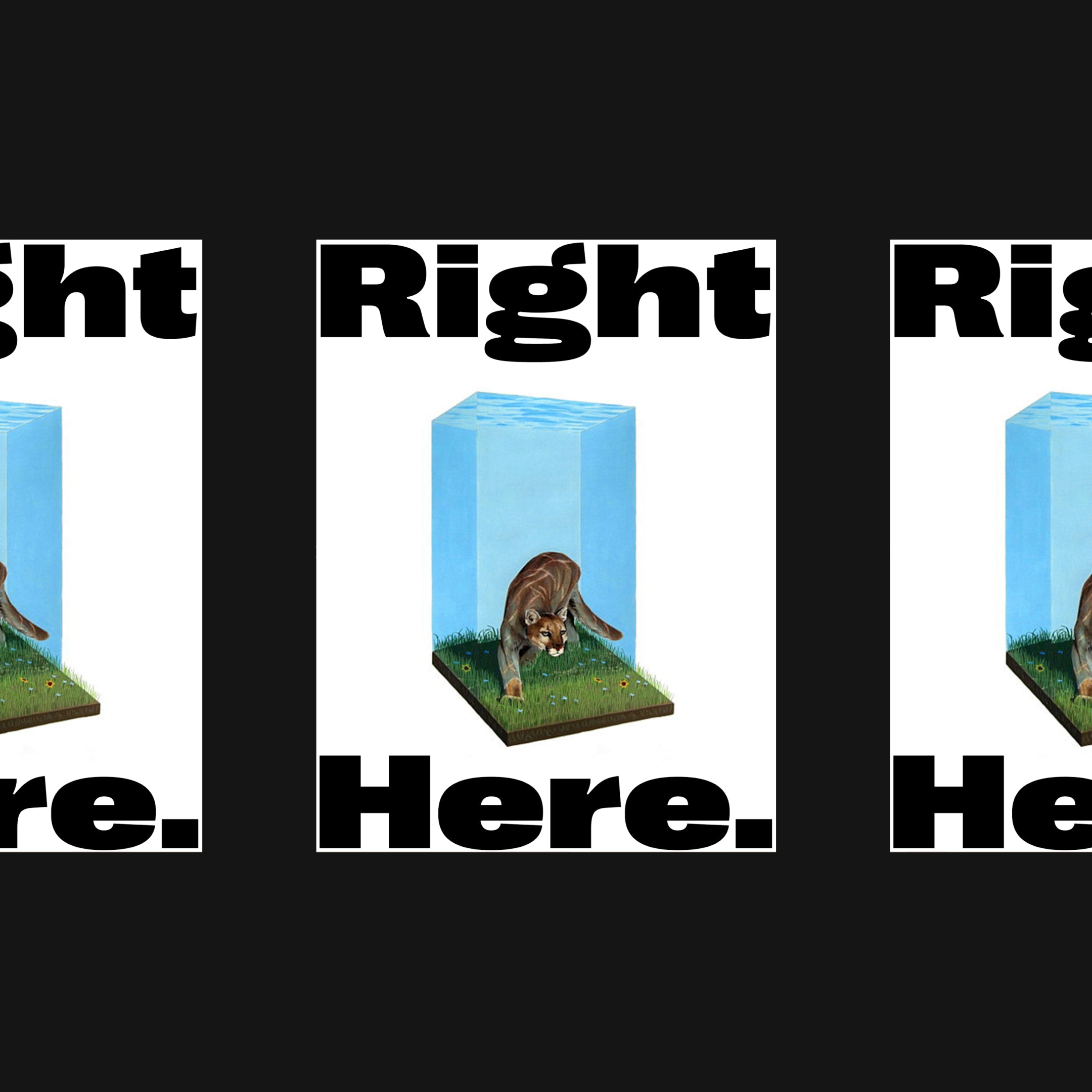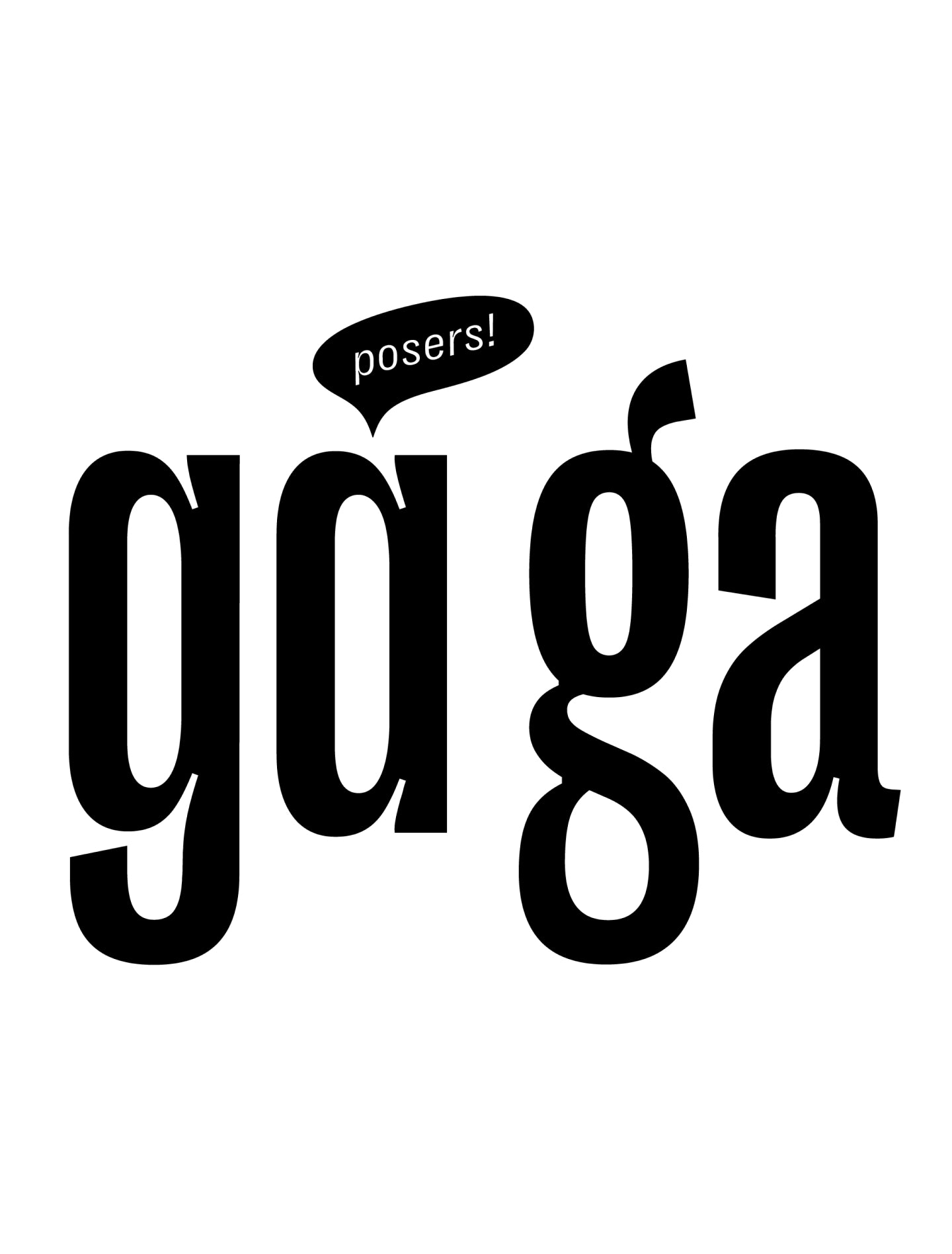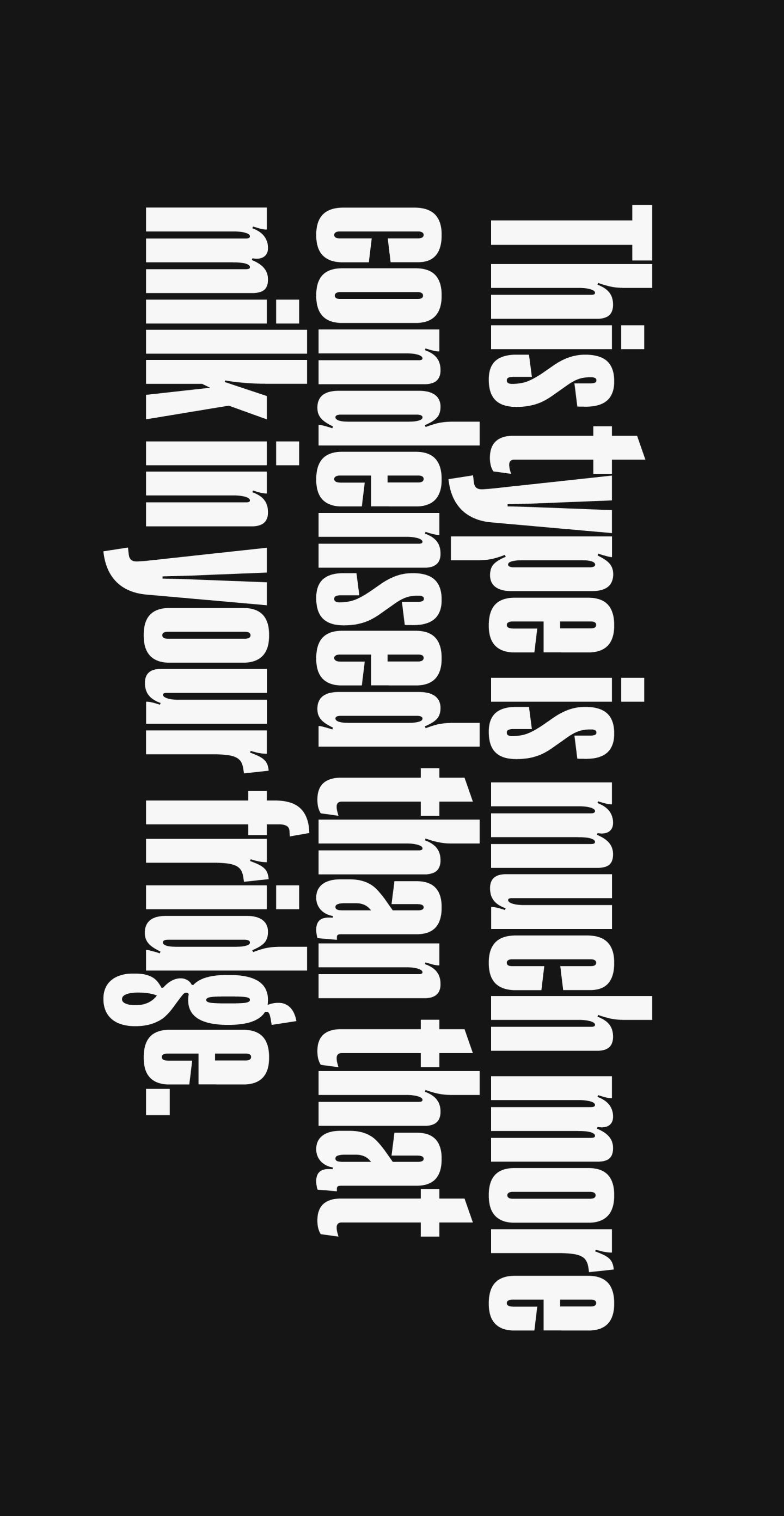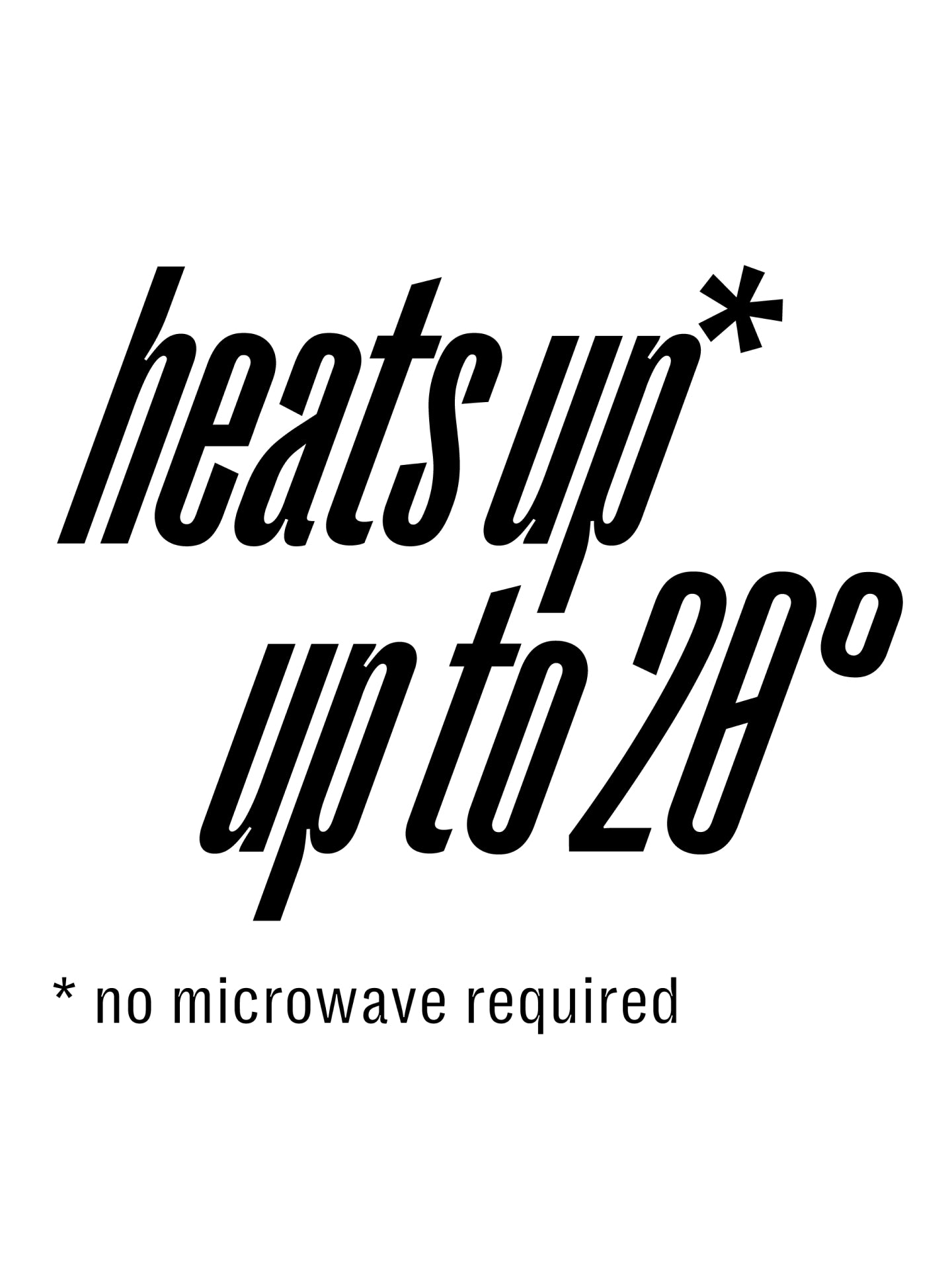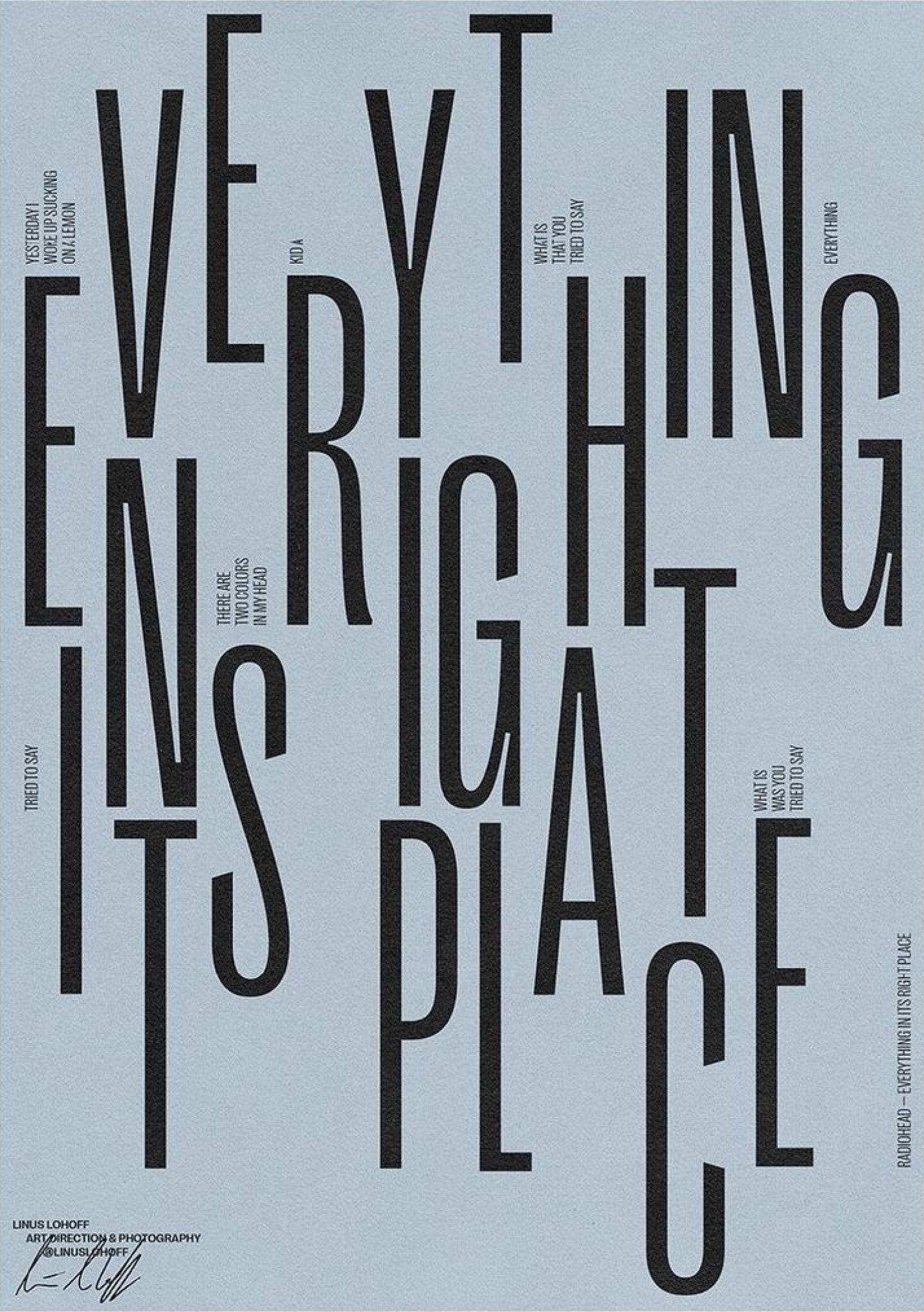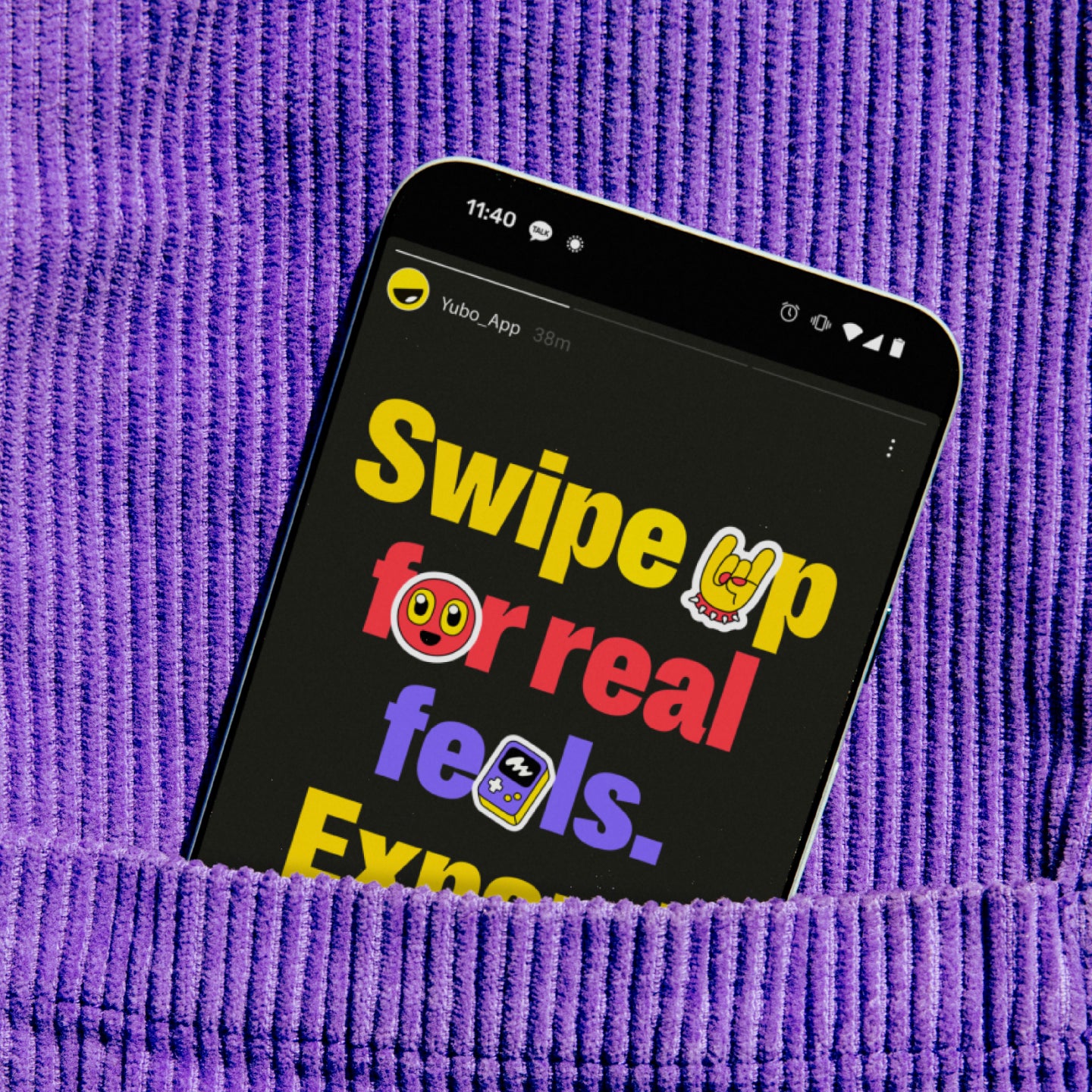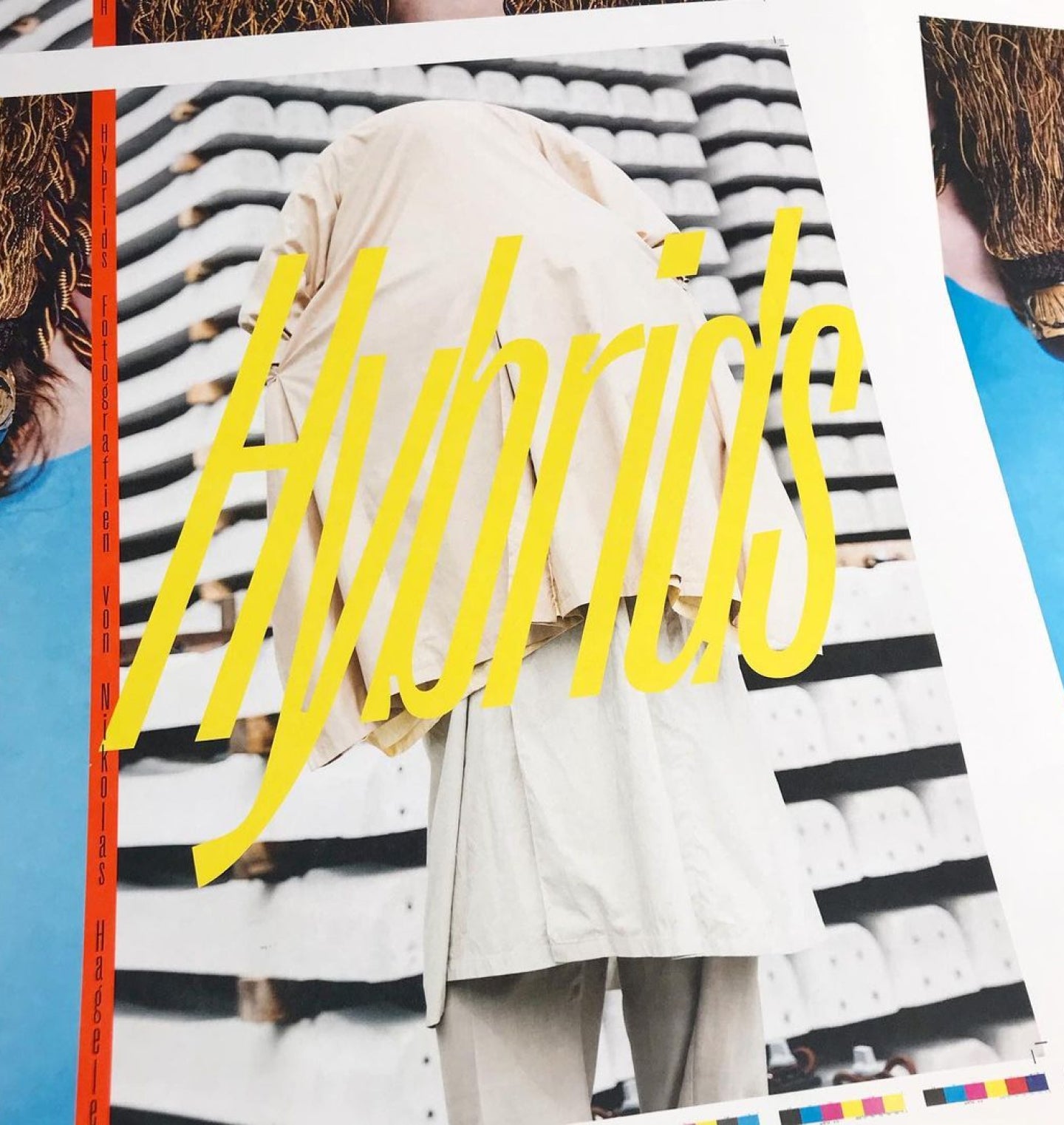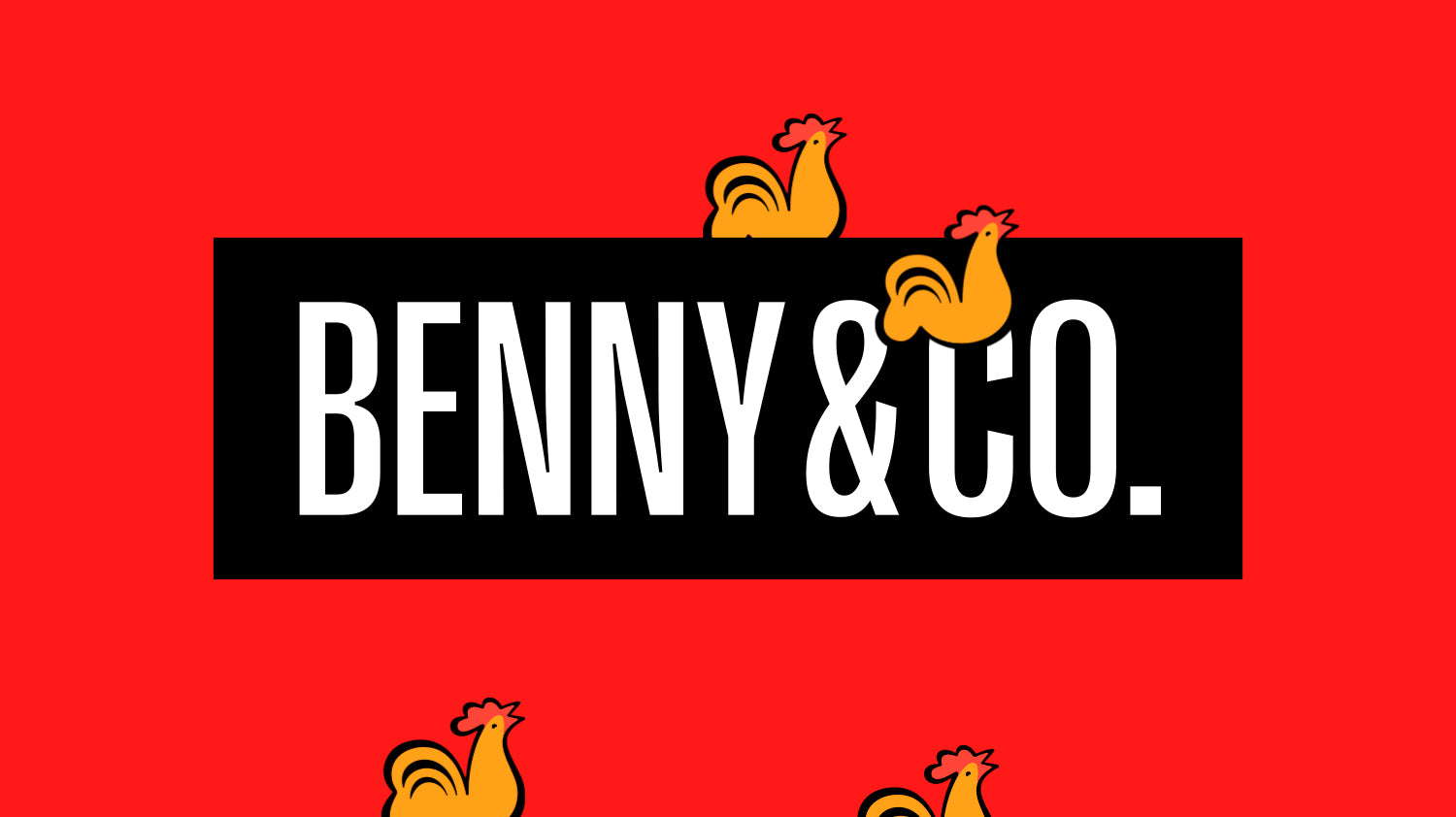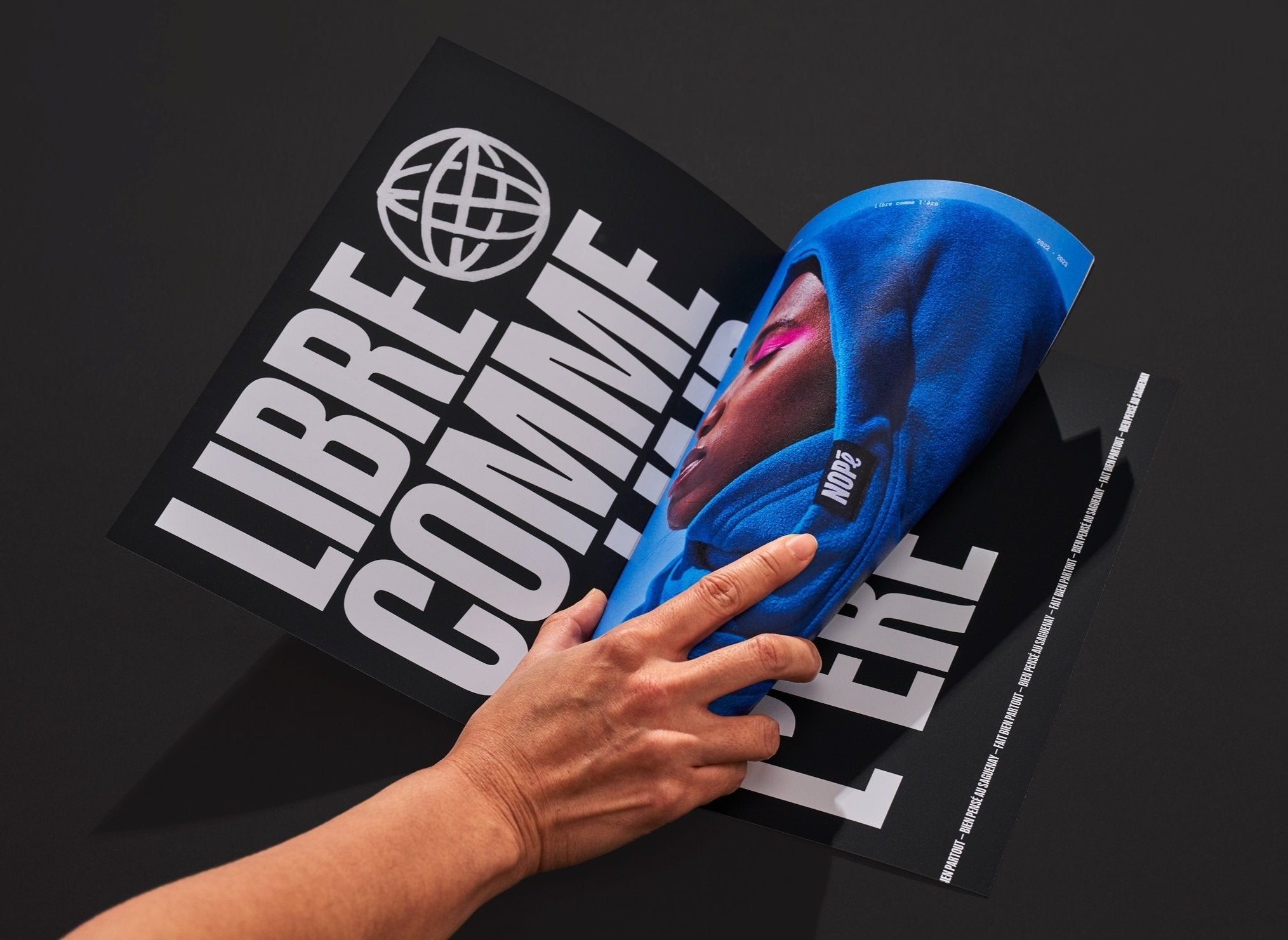
Right Grotesk Tight
Just Right. Never boring. Always on point.
Right Grotesk doesn’t try too hard—it just gets it right.
Right Grotesk is what happens when you strip away the fluff and focus on getting the essentials—well—just right. It’s a typeface that doesn’t scream for attention, but when you look closely, you’ll notice it’s been quietly winning you over the entire time.
Blending the neutrality and versatility of classic workhorse grotesks with a subtle but deliberate personality, Right Grotesk is your go-to when you want structure and soul. It’s got the kind of quiet confidence that can carry a headline or support the fine print—either way, it’s always in the right place at the right time. Its design balances utilitarian logic with a handful of expressive quirks. Smooth curves. Moderate contrast. Unexpected (but tasteful) anatomy that keeps things fresh without pushing into gimmick territory. These little details make it more than just another sans—you’ll feel the difference, even if you can’t immediately put your finger on why. Right Grotesk isn’t chasing trends, but it’s not stuck in the past either. It sidesteps the whole timeless vs. timely debate entirely. It’s built to do the job—whether that job is a cutting-edge editorial layout, a serious corporate deck, a minimalist portfolio, or a cheeky brand with attitude. One font family, endless vibes. In a world of extremes, Right Grotesk is the dependable middle path with unexpected flavor. A typeface designed for the kinds of projects that don’t just need to look good—they need to feel right.
Right Grotesk Tight is variable
Right Grotesk Tight's Features
Alternate a
Alternate g
Circled Numerals
Black Circled Numerals
Arrow
Slashed Zero
Tabular figures
Case sensitive forms
Just Right. Never boring. Always on point.
Right Grotesk blends the neutrality and functionality of workhorses with a good touch of distinctive personality. Featuring many fine details, smooth curves, moderate contrast and slightly unusual anatomy, the typeface can be a loud and proud hero or a humble supporting actor for all sorts of designs.
Not trendy, not timeless either, it was designed to be a versatile and high-quality type family for both serious and fun projects. It was designed to be just Right.
14 Styles with 789 Glyphs each
Including Italic and Cyrillic Support